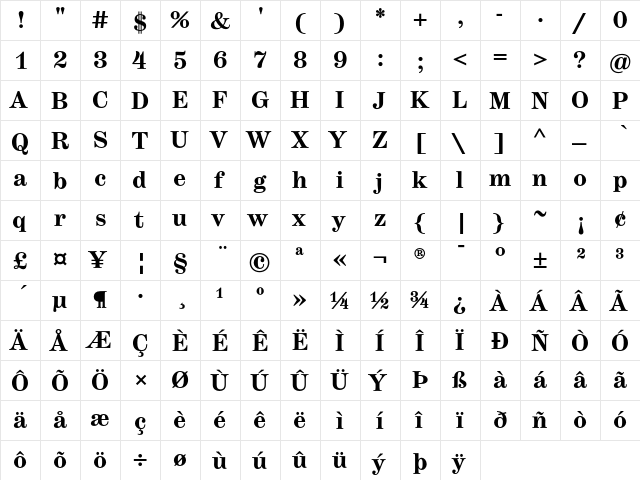
Hercules Text Bold
Design Context for Hercules Text Typeface
Hercules Text is a composed and adaptable typeface that performs quietly and consistently across a wide range of design contexts. Its bold stroke weight gives it real presence on the page.
Pro Tip: Use Hercules Text in both headline and body roles to test its range before committing to a single application.